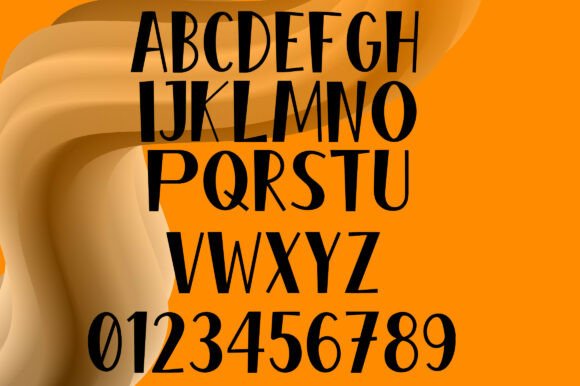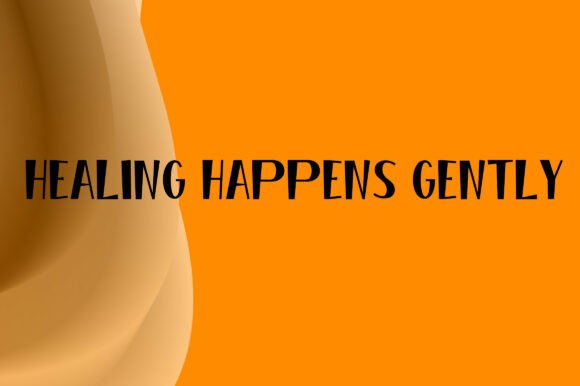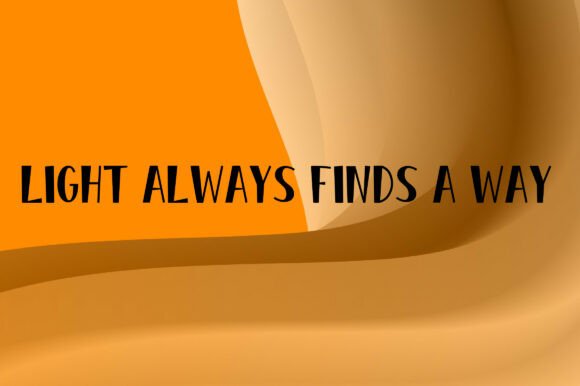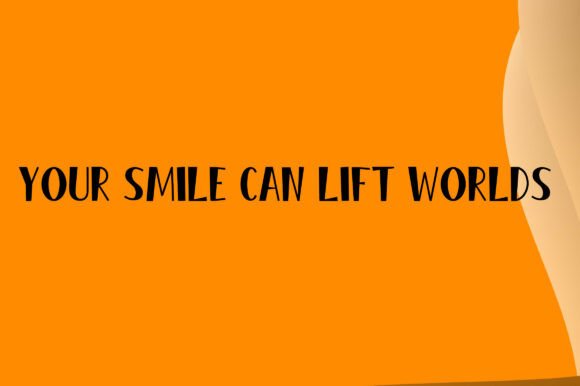
Introducing Annalise Font: A Bold Display Font for Modern Design
In the world of typography, a good font can make all the difference in creating a lasting impression. For designers and crafters looking for a bold and sophisticated statement, Annalise font is an excellent choice. This stunning display font boasts a tall, condensed style with a strong modern character that is sure to elevate your designs.
Key Features of Annalise Font
Annalise font is designed with uppercase letters A-Z and numbers 0-9, making it perfect for a variety of design applications. Its key features include:
- Sharp Tapered Strokes: The uppercase letterforms of Annalise font feature sharp tapered strokes that add a touch of elegance and sophistication.
- Clean Geometric Structure: The font’s clean geometric structure provides a sense of stability and balance, making it perfect for designs that require a strong foundation.
- Elegant High-Contrast Shapes: The elegant high-contrast shapes of Annalise font create a striking, stylish, and memorable look that is sure to grab attention.
Annalise font is versatile and can be used for a range of design applications, including:
- Branding: Create a lasting impression with Annalise font, perfect for logos, business cards, and other branding materials.
- Posters: Make a statement with Annalise font, ideal for posters, flyers, and other promotional materials.
- Packaging: Add a touch of sophistication to your packaging designs with Annalise font.
- Logos: Create a bold and memorable logo with Annalise font.
- Headlines: Use Annalise font to create attention-grabbing headlines for your website, blog, or social media graphics.
- Social Media Graphics: Elevate your social media graphics with Annalise font, perfect for creating engaging and stylish posts.
Why Choose Annalise Font?
With so many fonts available, why choose Annalise font? Here are just a few reasons:
- Unique and Memorable: Annalise font’s bold and sophisticated design makes it a unique and memorable choice for your designs.
- High-Quality Design: Annalise font is designed with high-quality craftsmanship, ensuring that your designs look professional and polished.
- Easy to Read: Despite its bold and condensed style, Annalise font is easy to read, making it perfect for designs that require a clear and concise message.
Tips for Using Annalise Font
To get the most out of Annalise font, here are a few tips:
- Use it Sparingly: Annalise font is bold and attention-grabbing, so use it sparingly to avoid overwhelming your design.
- Pair it with a Simple Font: Pair Annalise font with a simple font to create contrast and visual interest.
- Experiment with Colors: Annalise font looks great in a variety of colors, so experiment with different hues to find the perfect fit for your design.
In conclusion, Annalise font is a bold and sophisticated display font that is perfect for designers and crafters looking to elevate their designs. With its sharp tapered strokes, clean geometric structure, and elegant high-contrast shapes, Annalise font is sure to make a lasting impression. Whether you’re creating branding materials, posters, packaging, logos, headlines, or social media graphics, Annalise font is an excellent choice.